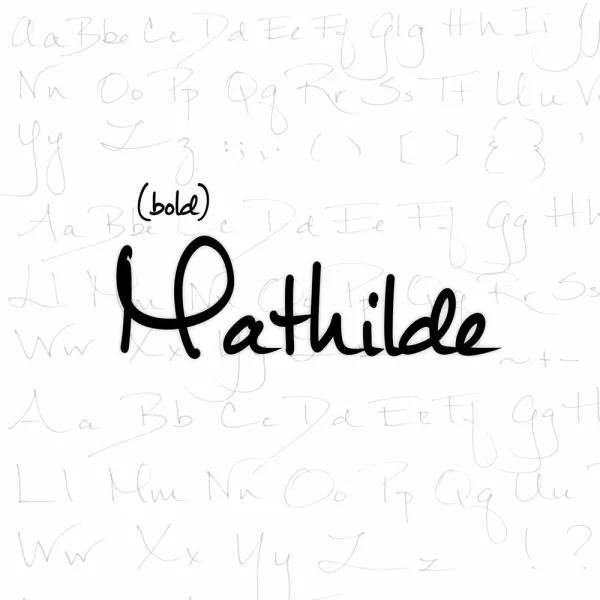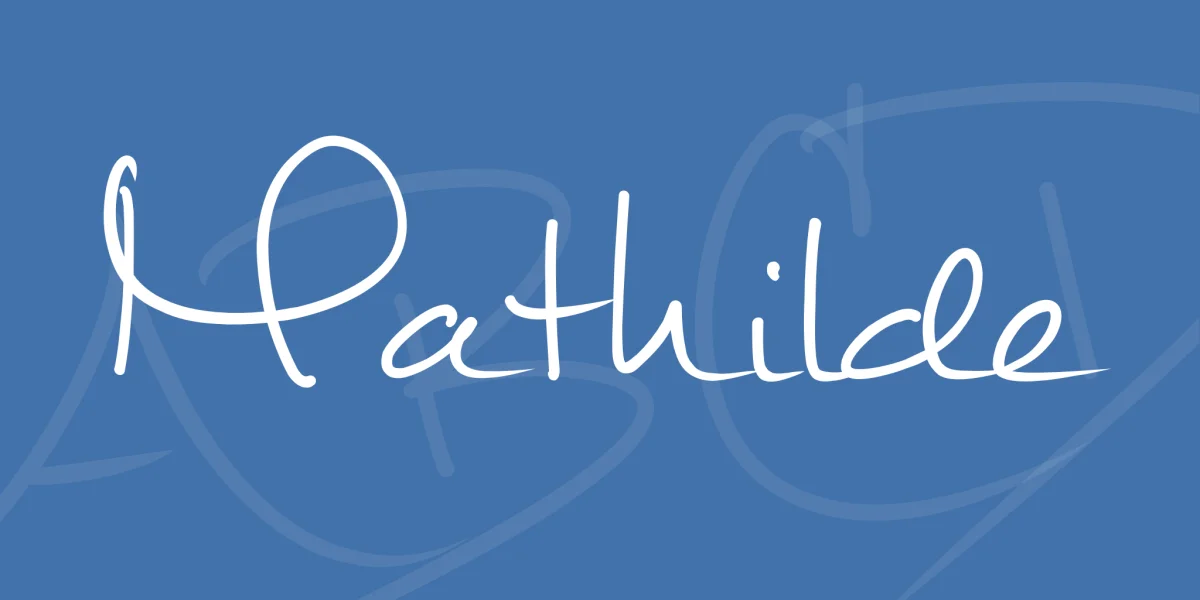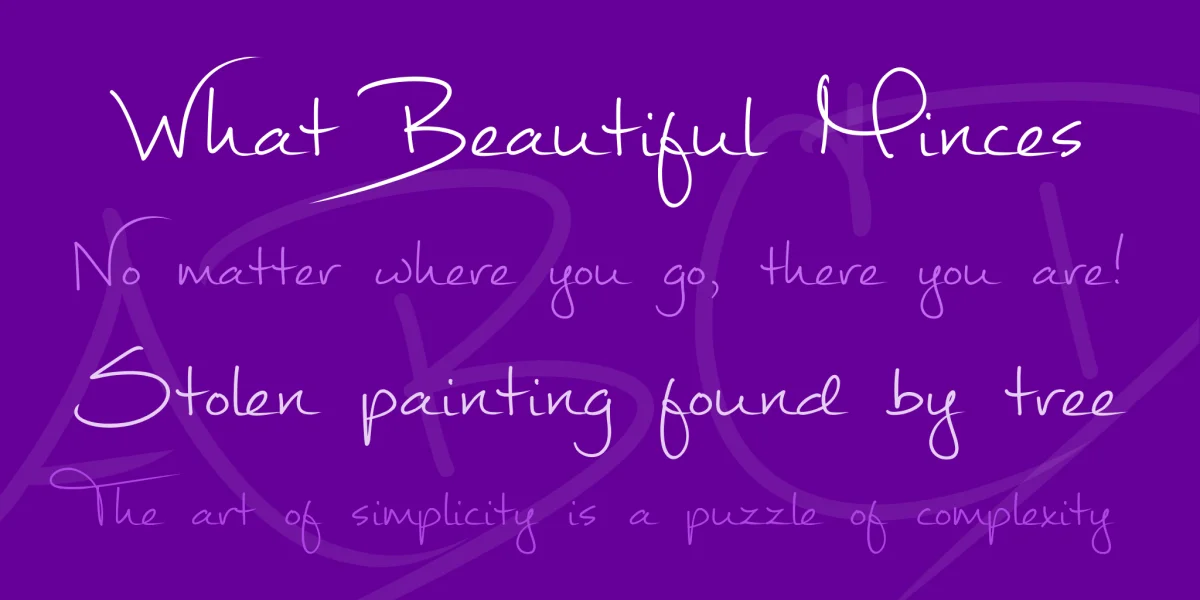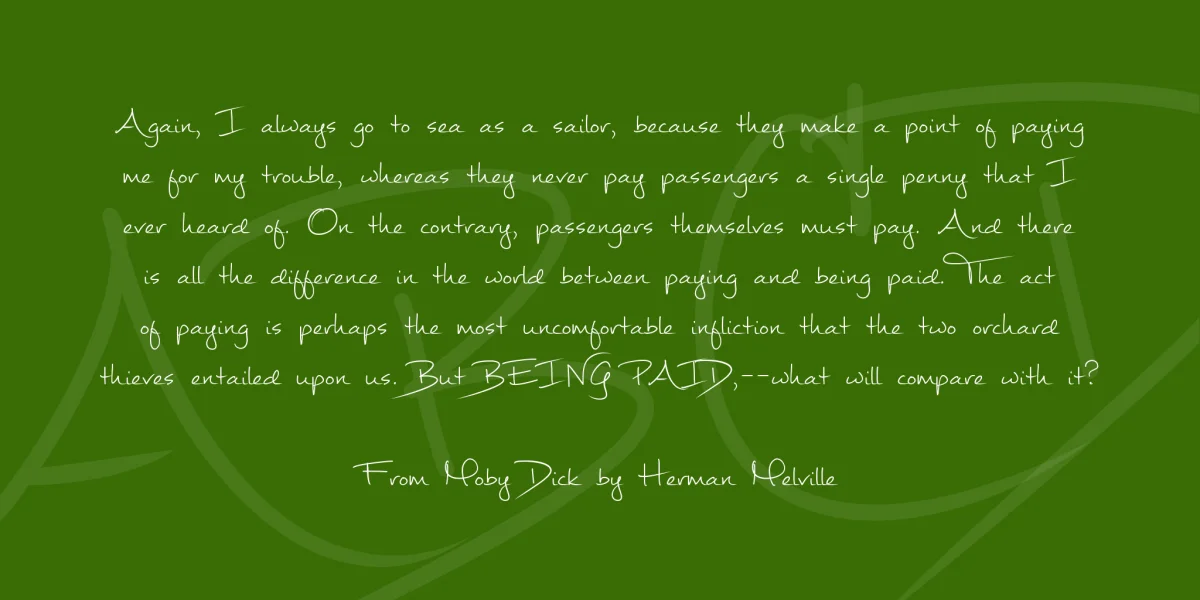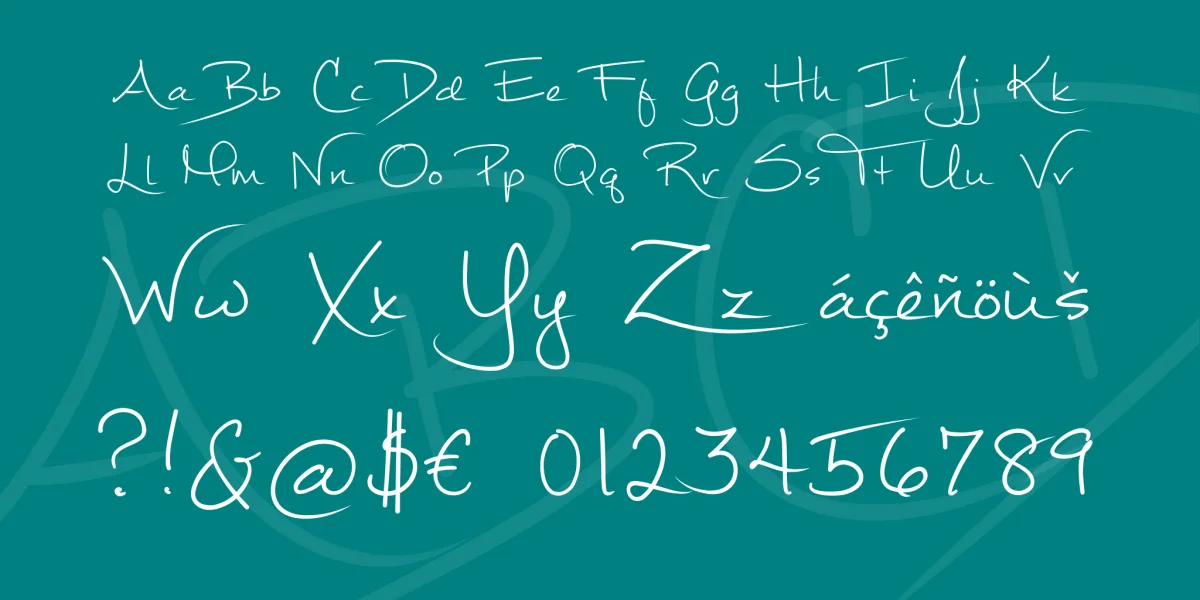
"Mathilde" is a handwritten, cursive/print hybrid typeface that includes accented letterforms, math symbols, as well as opentype contextual alternatives for common double-letter combinations.